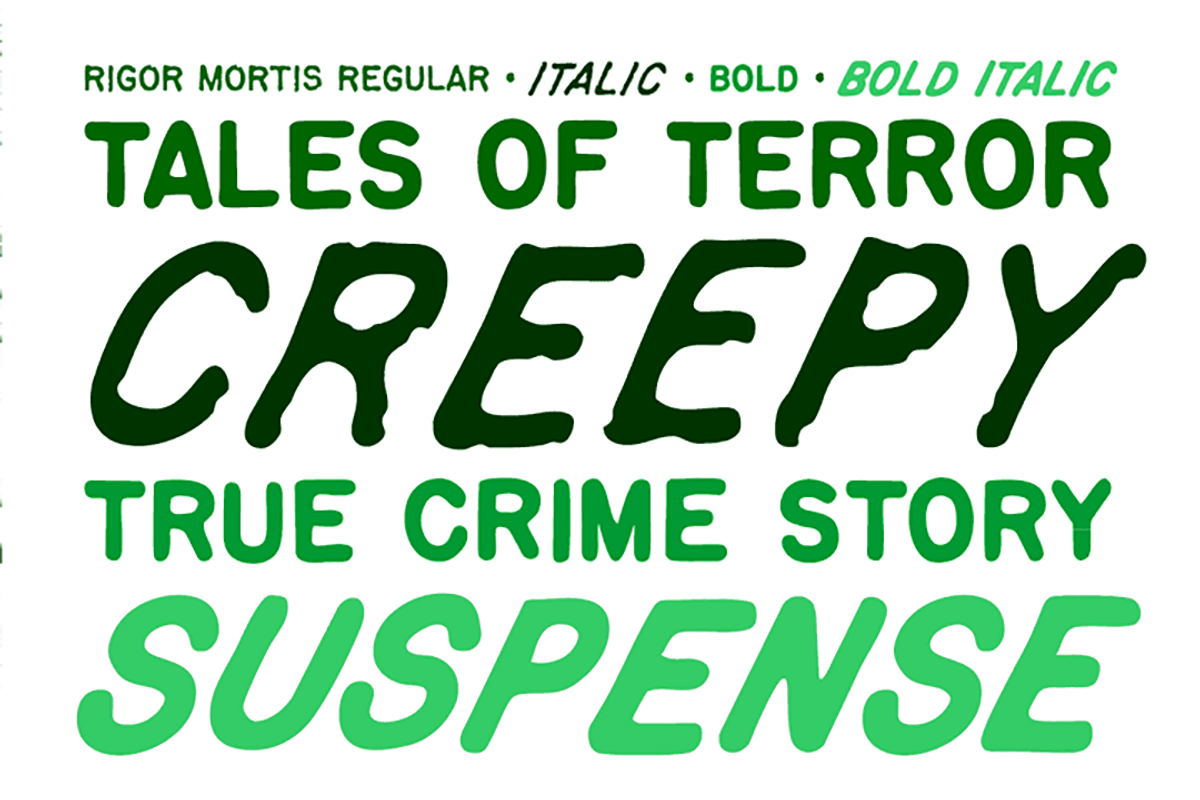
Rigor Mortis vintage comic font
Rigor Mortis vintage comic font by Comicraft Fonts is a font selected for branding, posters, packaging, typography.
Why Rigor Mortis vintage comic font is worth a look
Rigor Mortis vintage comic font by Comicraft Fonts fits naturally into Branding, posters, packaging, typography.